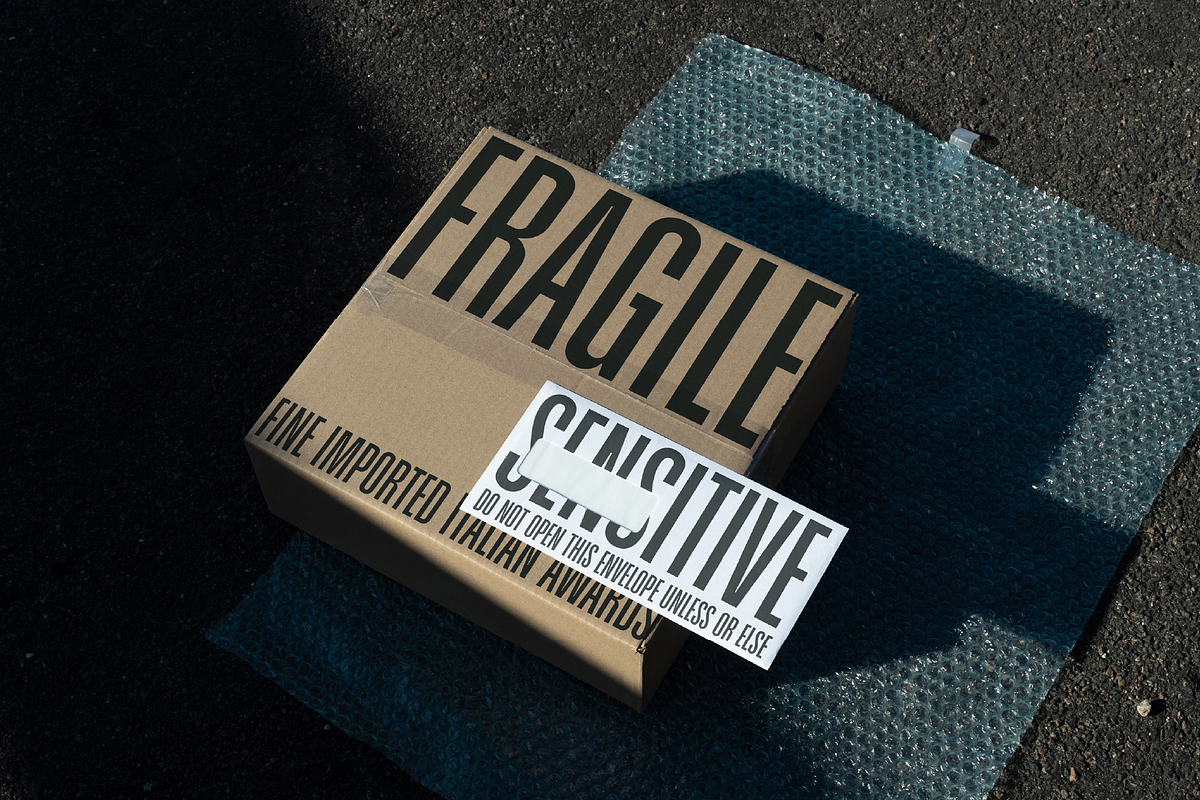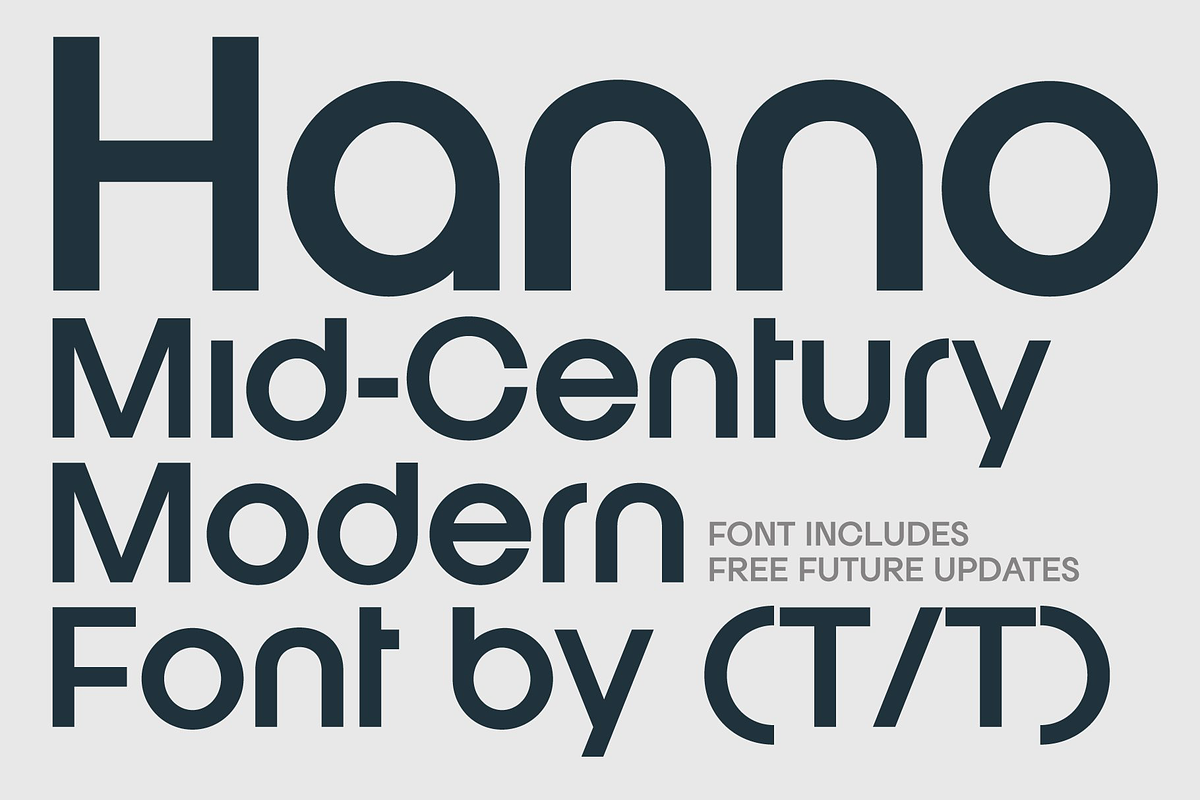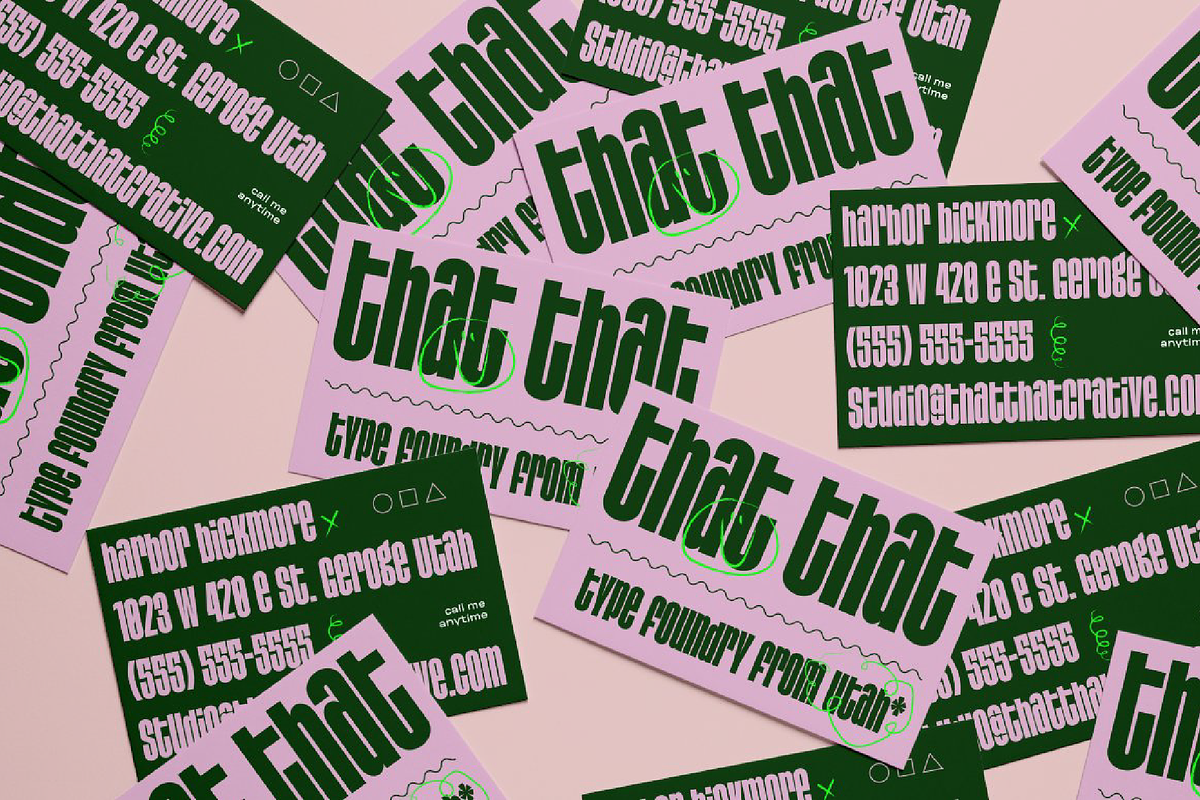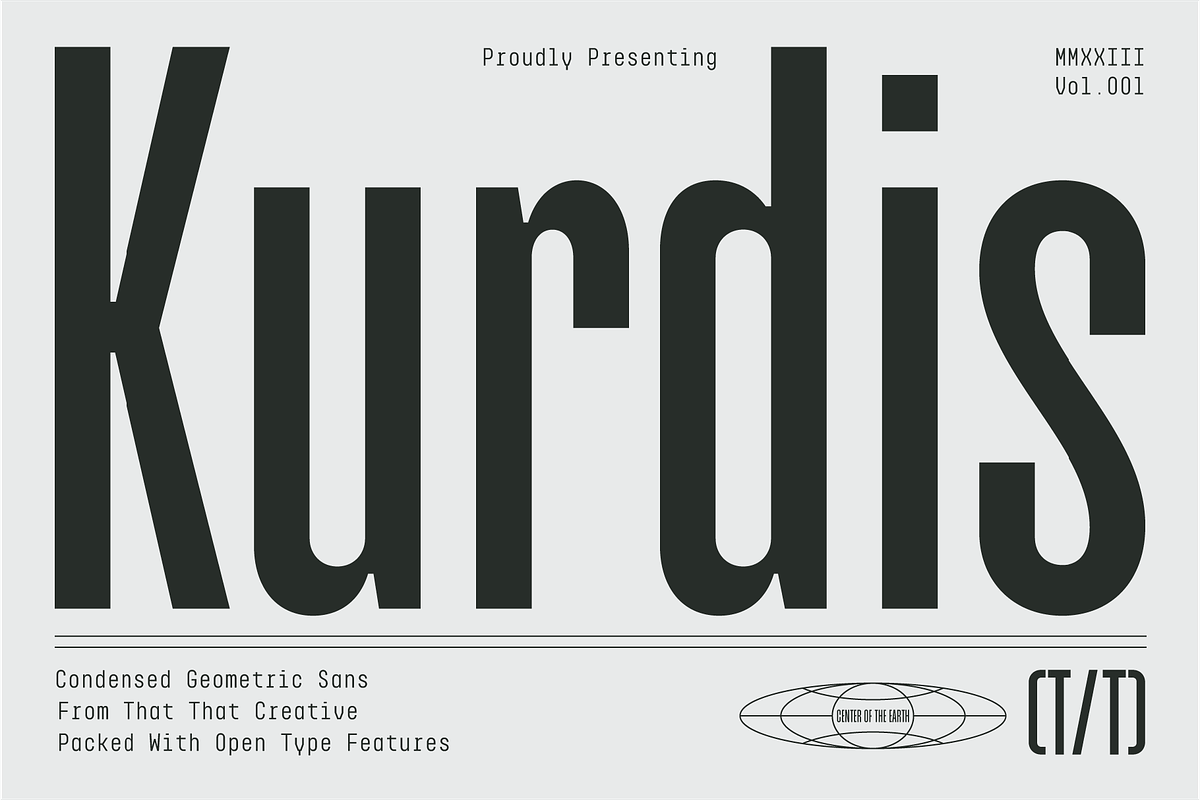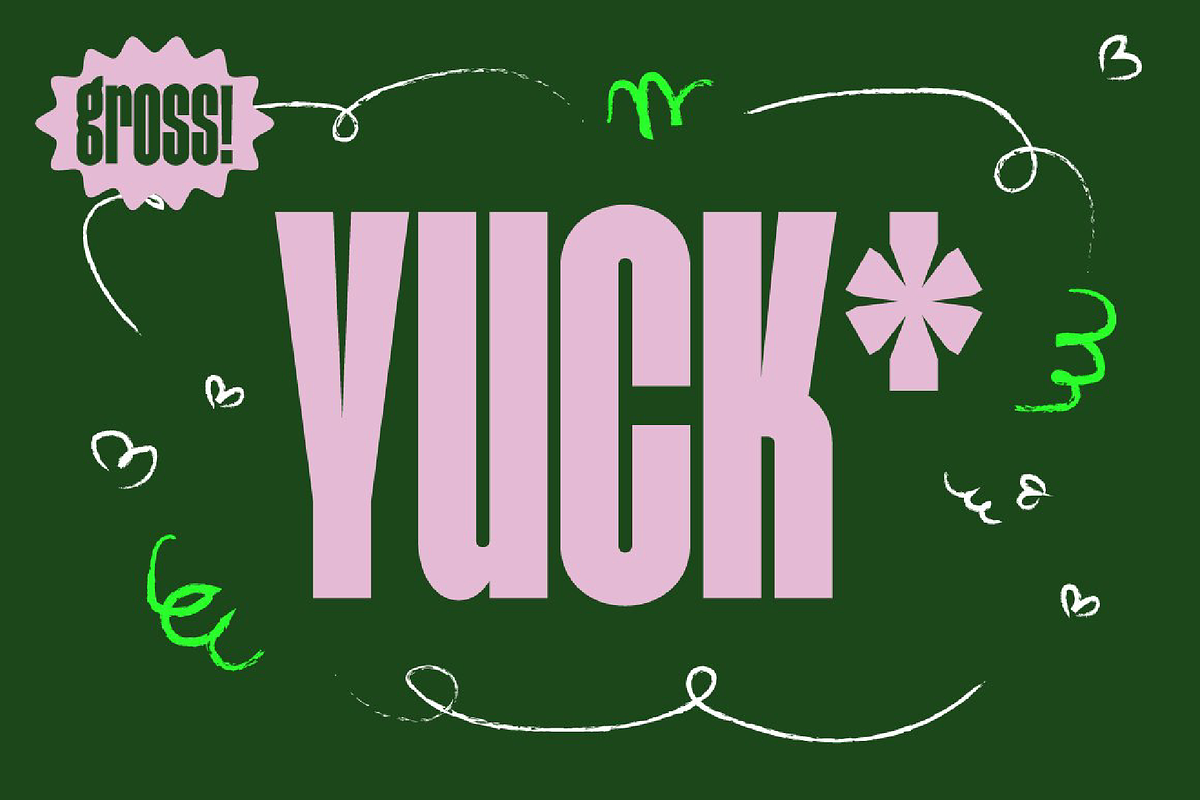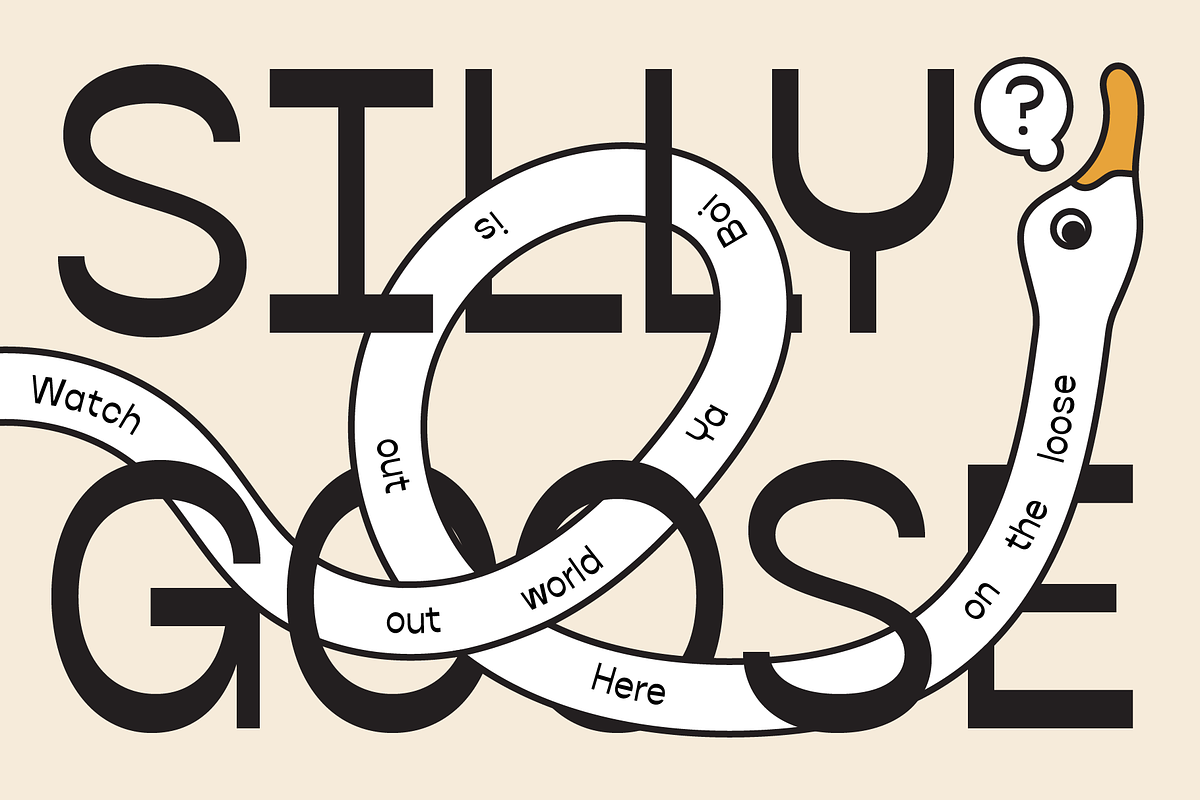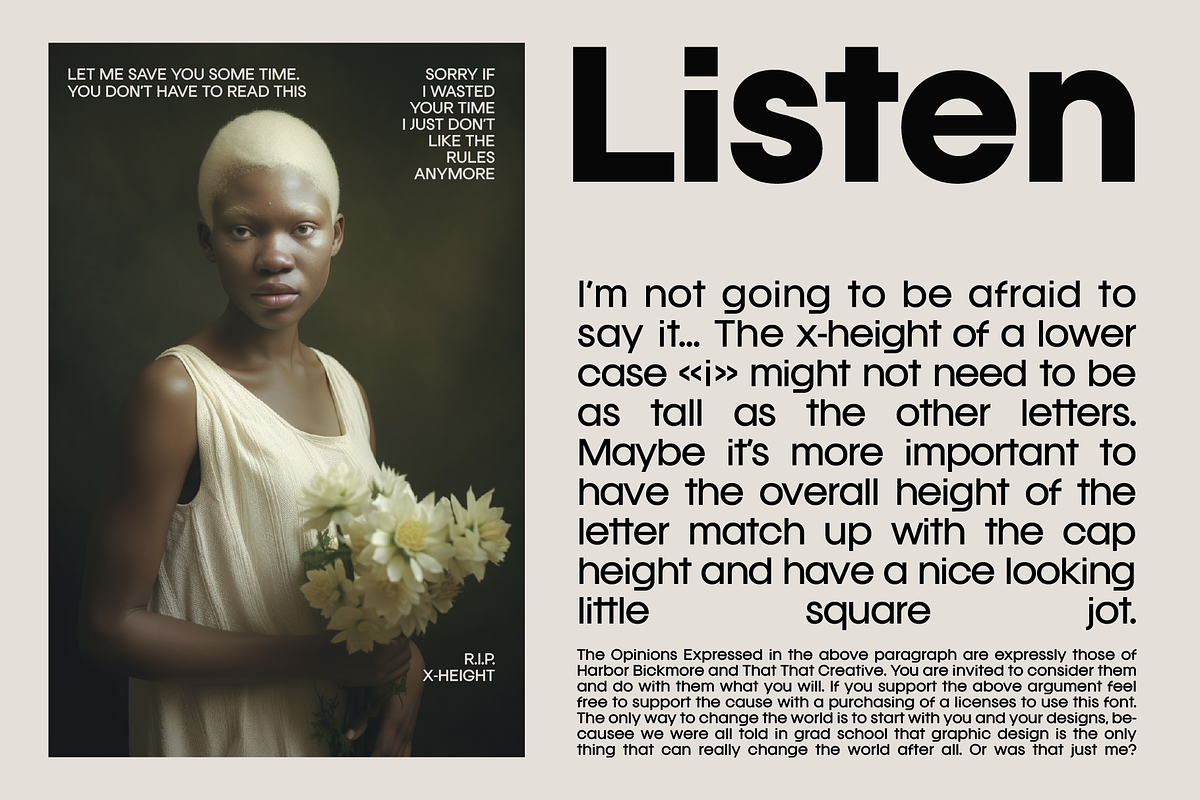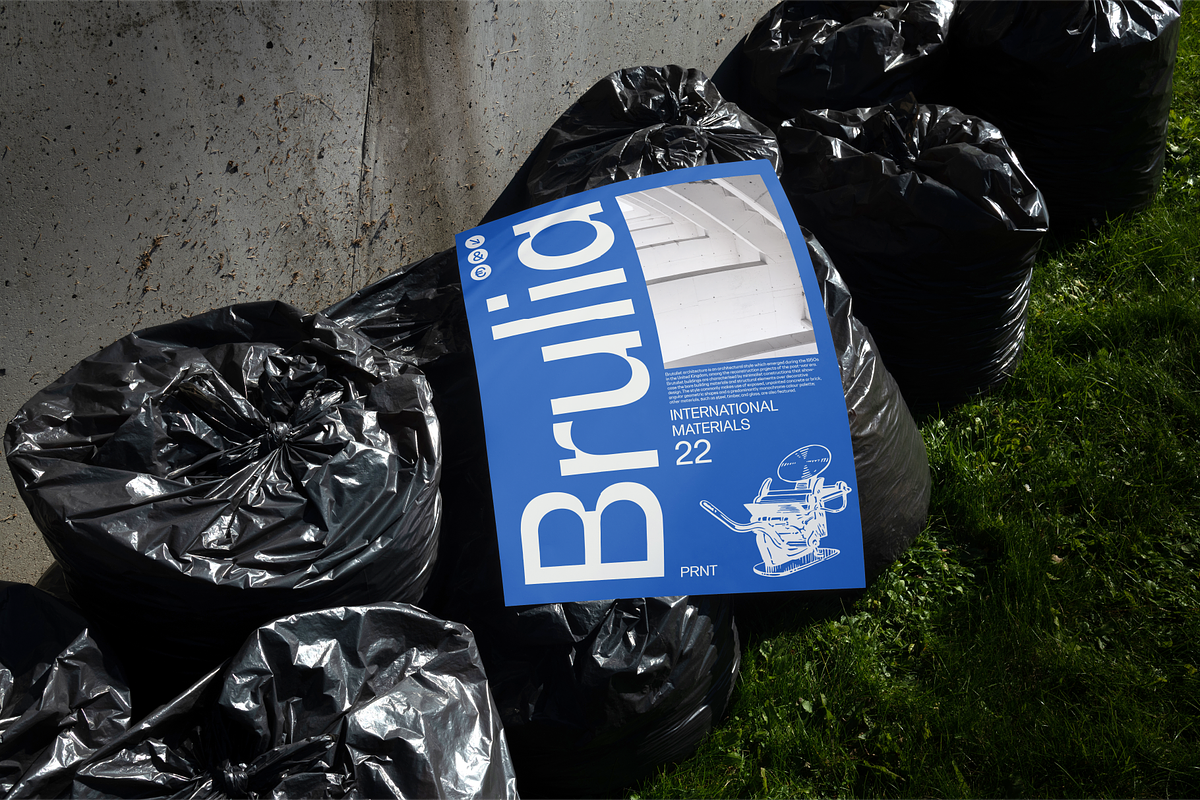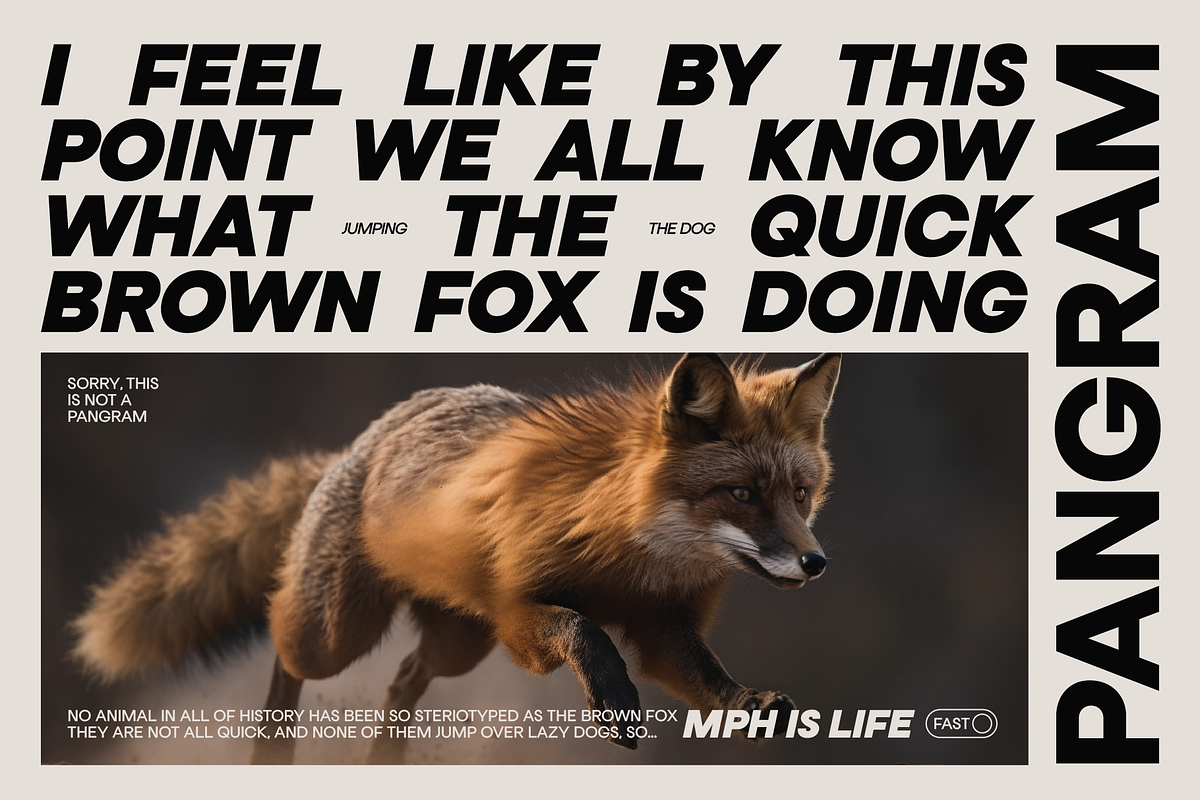
Super Sans Serif Font Bundle
This Bundle is perfect for those who just love a good clean modern sans serif font. This bundle includes our best selling serif tyfaces that span the styles of vintage retro, playful quirky and serious and clean minimal fonts. This bundle is perfect if you do a lot of branding, instagram, posters, magazines, web design, or really let's be honest any kinda design.
Bundle Includes 15 Fonts
- Franie: Regular, Italic, Bold, Bold Italic
- Neuething: Regular, Bold, Ultra Expanded, Black Ultra Expanded
- Agharti Black Extra Condensed
- Kurdis Extra Condensed
- Baou
- Brulia: Text, Display
- Hanno
- Mackerol